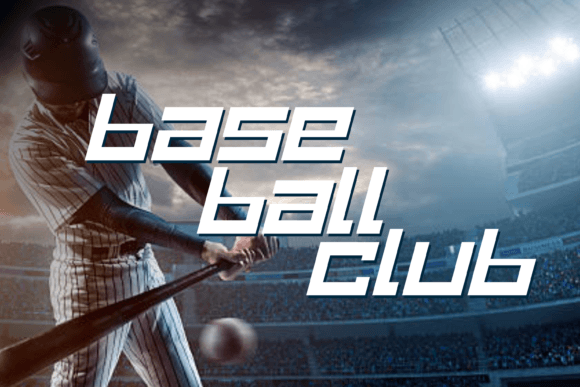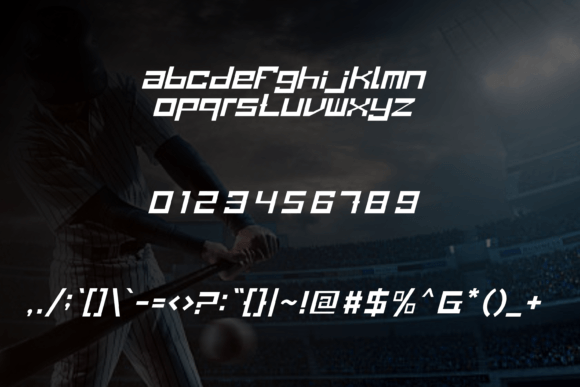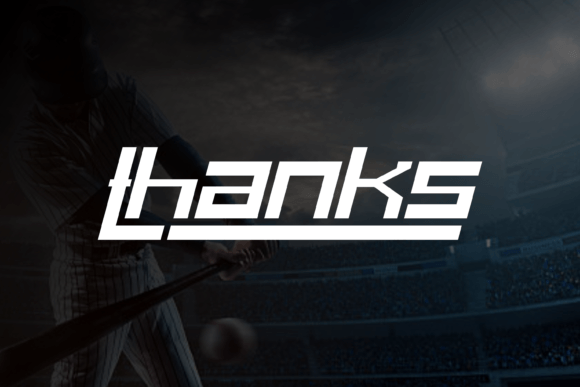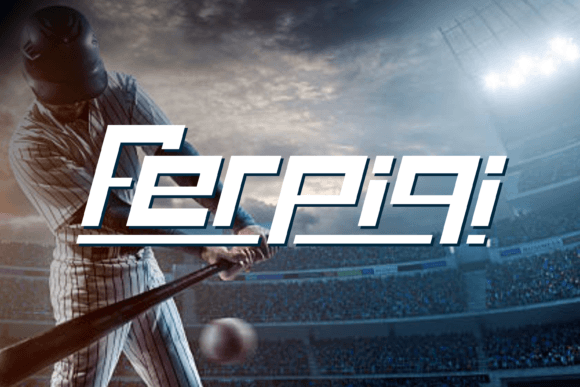
Ferpiqi Font: Elevate Your Designs with a Modern and Cool Sans Serif Font
Are you tired of using the same old fonts in your designs? Look no further than Ferpiqi Font, a modern and cool sans serif font that’s sure to add a fresh feel to your next project. With its versatile and clean design, Ferpiqi Font is perfect for a wide range of applications, from greeting cards to headlines, and everything in between.
What Makes Ferpiqi Font So Special?
Ferpiqi Font is a sans serif font, which means it doesn’t have the small lines or flourishes that are characteristic of serif fonts. This makes it a great choice for designs where you want a clean and modern look. The font has a unique and stylish aesthetic that’s sure to grab attention and set your designs apart from the crowd.
Key Features of Ferpiqi Font
- Modern and Cool Design: Ferpiqi Font has a sleek and contemporary design that’s perfect for designers who want to create modern and stylish designs.
- Versatile: This font can be used for a wide range of applications, from greeting cards to headlines, and everything in between.
- Easy to Read: Ferpiqi Font is clear and easy to read, making it perfect for designs where you want to communicate a message clearly and effectively.
- High-Quality: Ferpiqi Font is a high-quality font that’s designed to look great in any design.
Uses of Ferpiqi Font
Ferpiqi Font is a versatile font that can be used for a wide range of applications, including:
- Greeting Cards: Add a modern and stylish touch to your greeting cards with Ferpiqi Font.
- Headlines: Use Ferpiqi Font to create eye-catching headlines that grab attention.
- Logos: Create a modern and stylish logo for your business or brand with Ferpiqi Font.
- Posters: Use Ferpiqi Font to create eye-catching posters that communicate your message clearly and effectively.
- Digital Media: Ferpiqi Font is perfect for digital media, including social media graphics, website headers, and more.
Why Designers and Crafters Love Ferpiqi Font
Designers and crafters love Ferpiqi Font for its modern and cool design, versatility, and ease of use. Here are just a few reasons why:
- Customizable: Ferpiqi Font can be customized to fit your design needs, including adjusting the size, color, and style.
- Unique Design: Ferpiqi Font has a unique design that’s sure to set your designs apart from the crowd.
Tips for Using Ferpiqi Font
Here are a few tips for using Ferpiqi Font in your designs:
- Use it as a Headline Font: Ferpiqi Font is perfect for headlines, so use it to grab attention and communicate your message.
- Pair it with Other Fonts: Ferpiqi Font pairs well with other fonts, so don’t be afraid to experiment with different font combinations.
- Adjust the Size and Color: Adjust the size and color of Ferpiqi Font to fit your design needs.